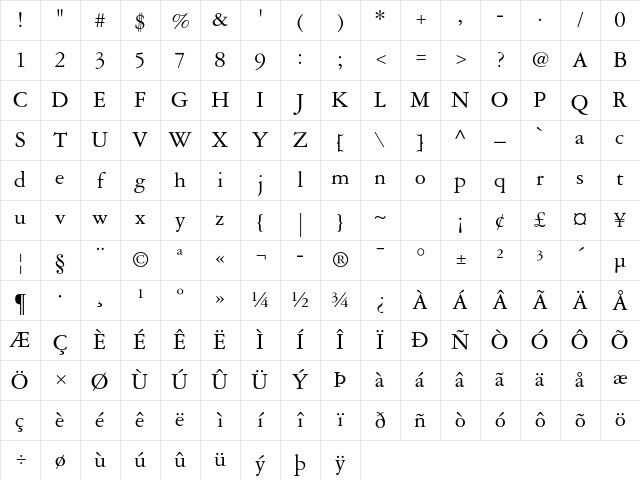
Garamond 3 LT Std Regular
Designer: Morris Fuller Benton, Thomas Maitland Cleland
Design Context for Garamond 3 LT Std
Garamond 3 LT Std is a composed and adaptable typeface that performs quietly and consistently across a wide range of design contexts. Its slender proportions lend an understated elegance to any composition.